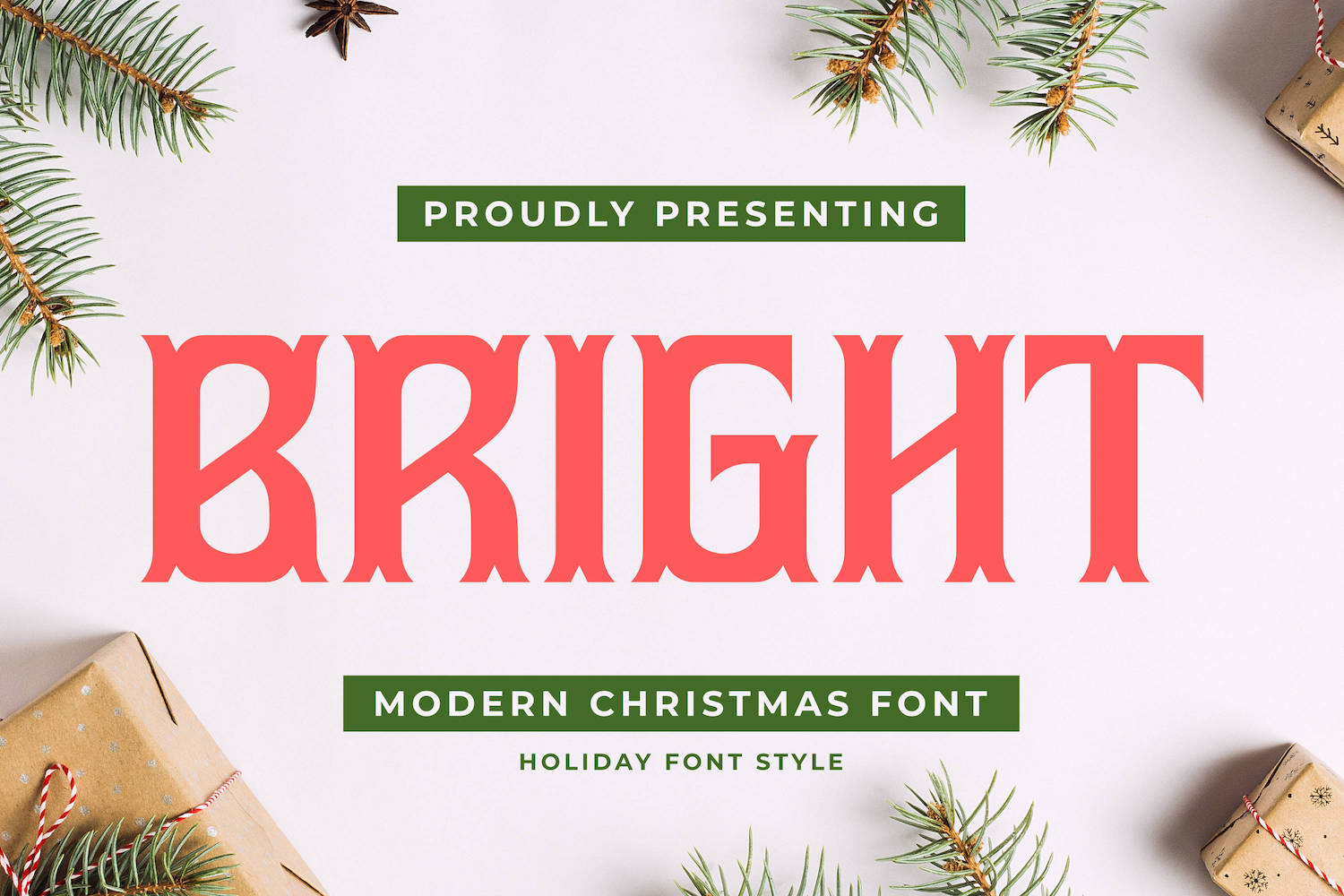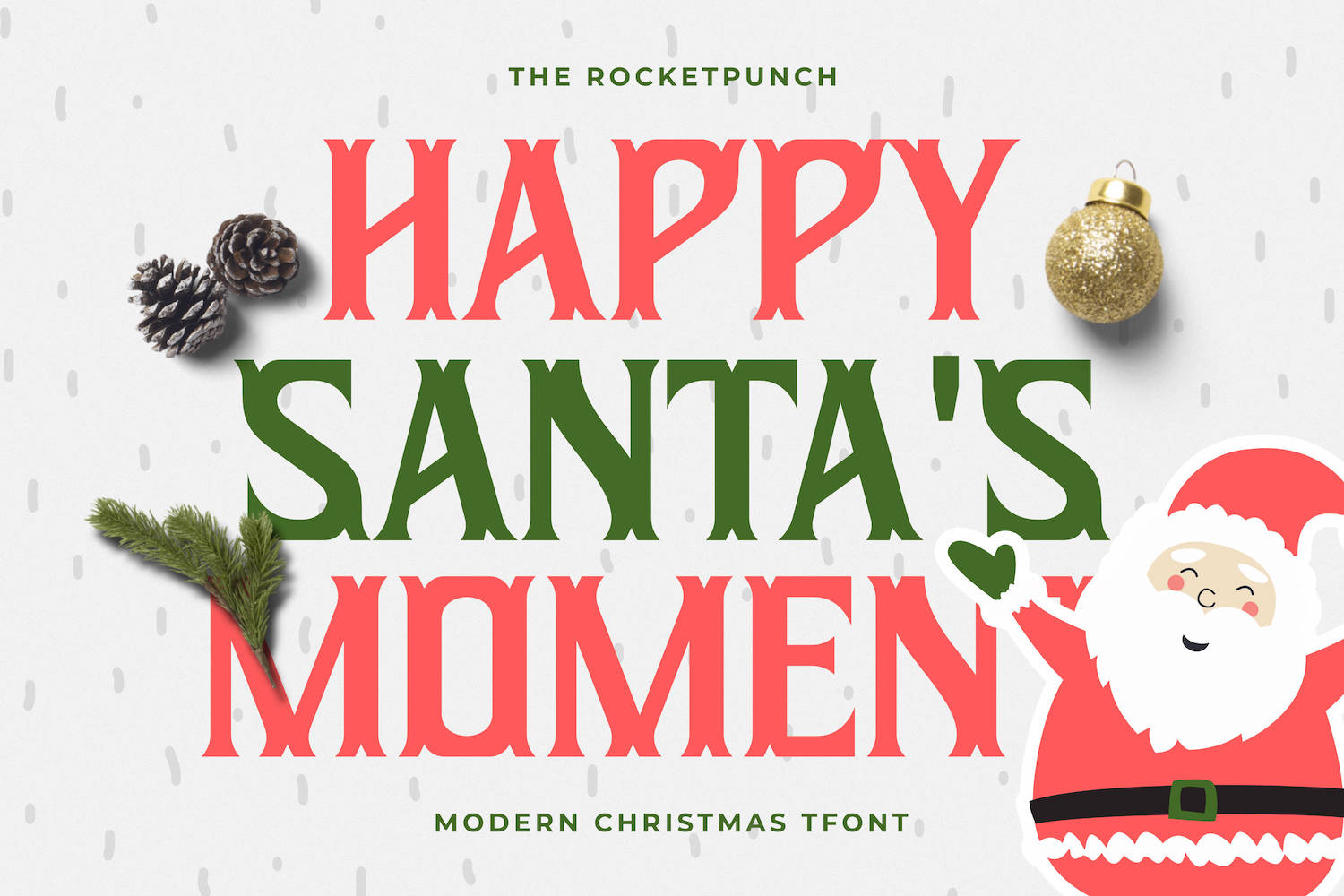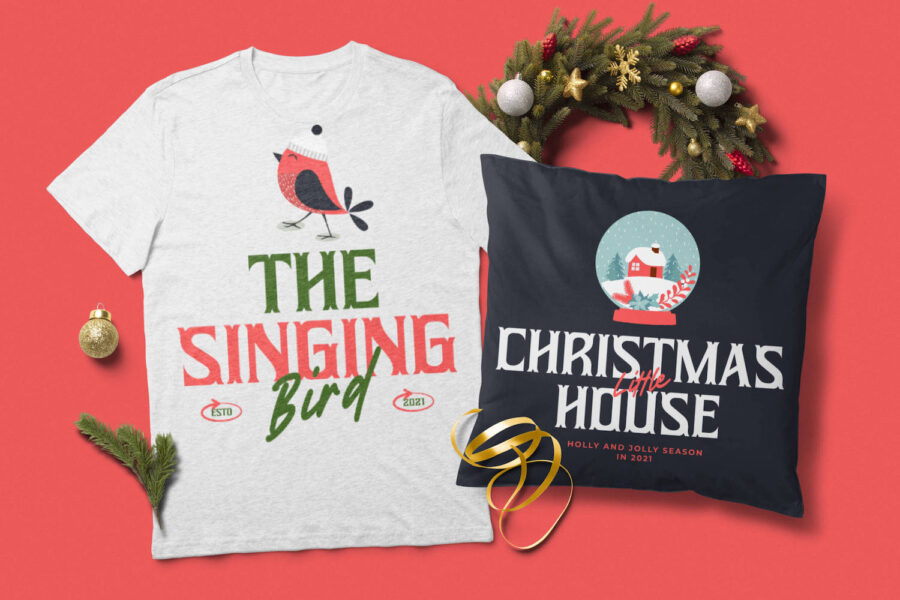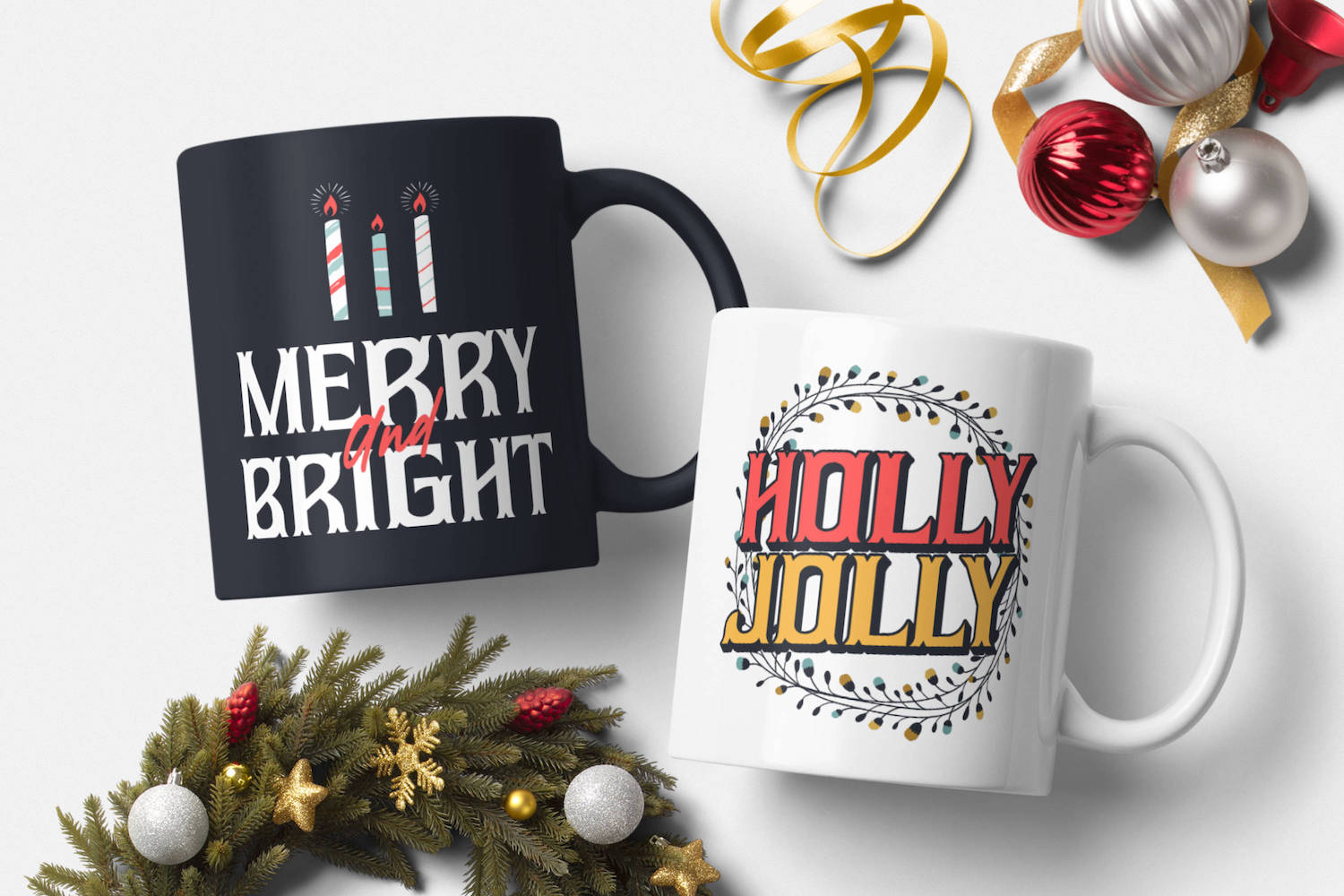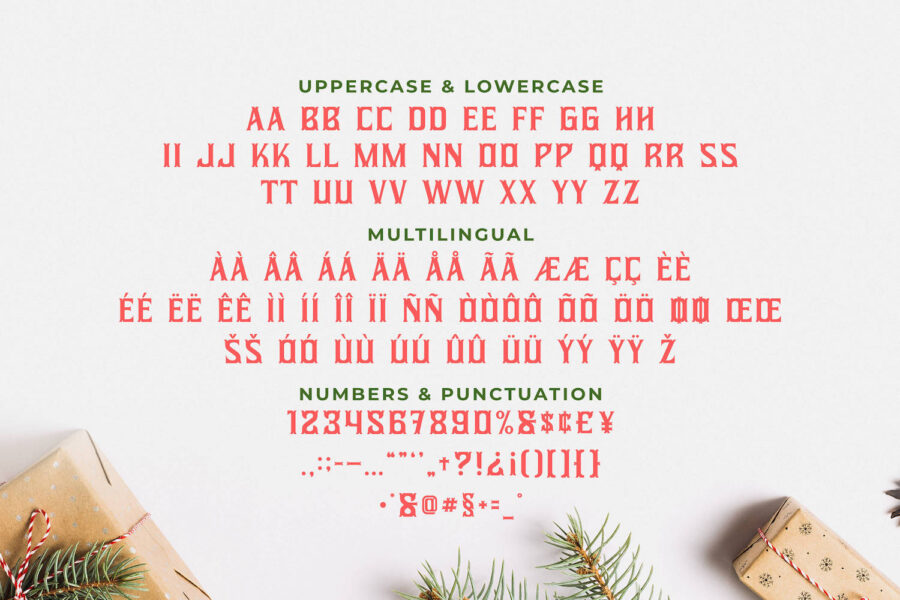
Bright is a modern Christmas font that brings festive cheer into every design. Its bold, angular characters blend a gothic flair with a playful holiday spirit, making it perfect for Christmas cards, party invitations, packaging, and seasonal branding. With a strong presence and decorative feel, Bright stands out in both print and digital formats.
This font includes uppercase, lowercase, multilingual characters, numerals, and a variety of punctuation symbols. Whether used on mugs, t-shirts, greeting cards, or posters, Bright is designed to spark joy and warmth during the holiday season. It’s ideal for creatives looking to add a whimsical, yet classic touch to their Christmas projects.
Bright